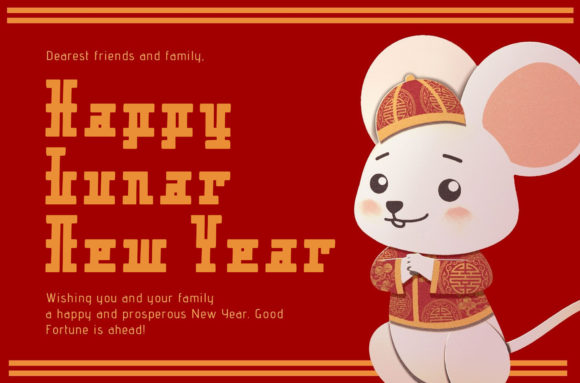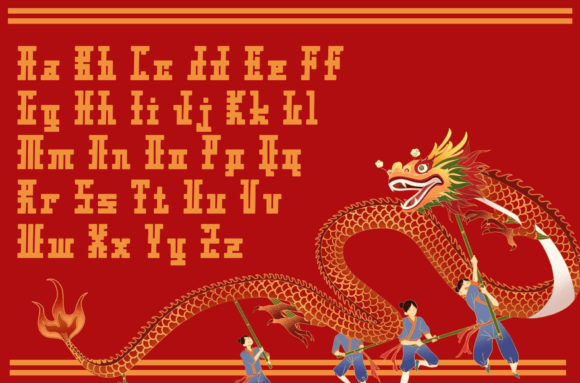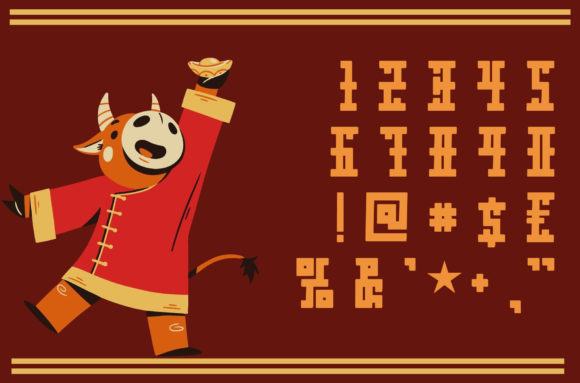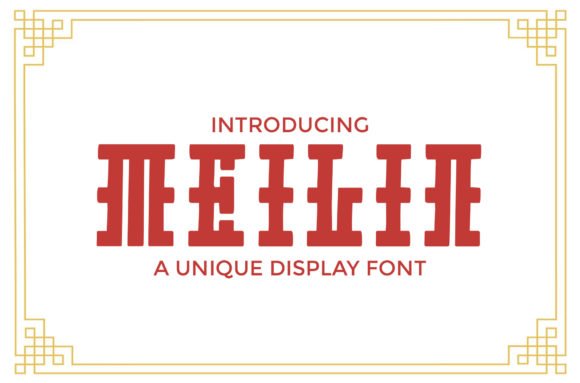
Introduction to Meiling Font
Meiling is a cool, incredibly unique and bold display font.
It will elevate a wide range of crafting ideas, from cards, to branding, labels and much more Add it confidently to your favorite creations and let yourself be amazed by the outcome generated.
Meiling Font offers exceptional quality and versatility, making it a valuable addition to your design toolkit. Whether you’re creating for personal projects or commercial use, Meiling Font delivers professional results.